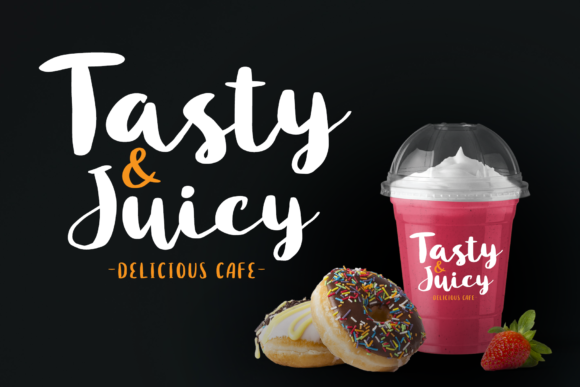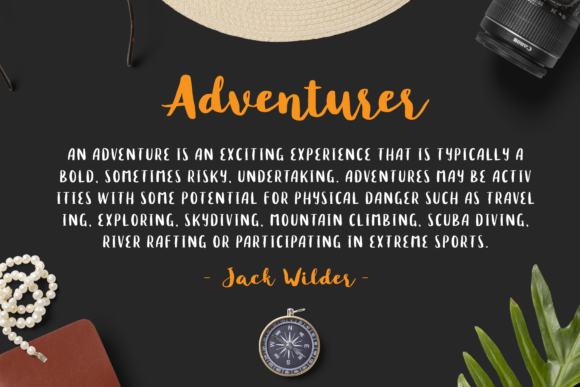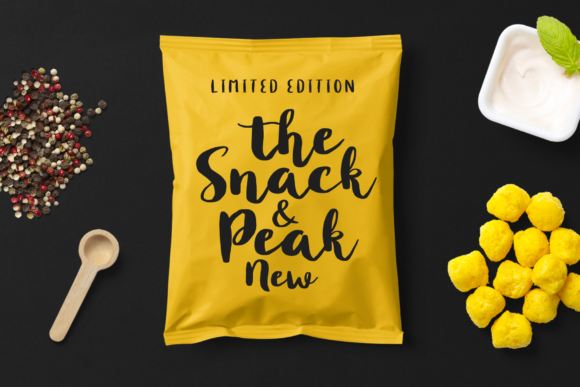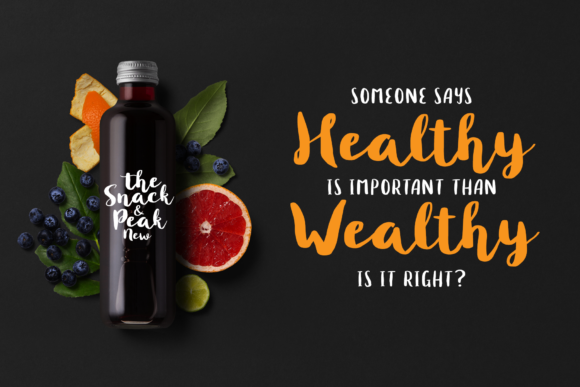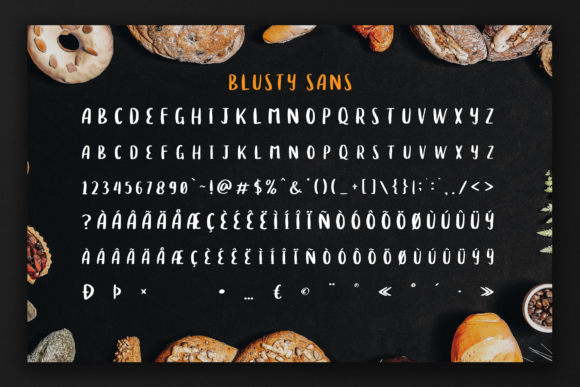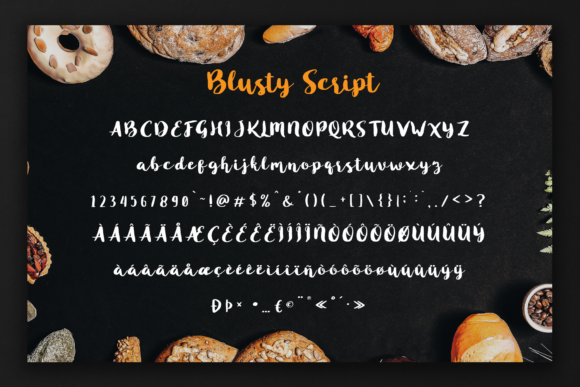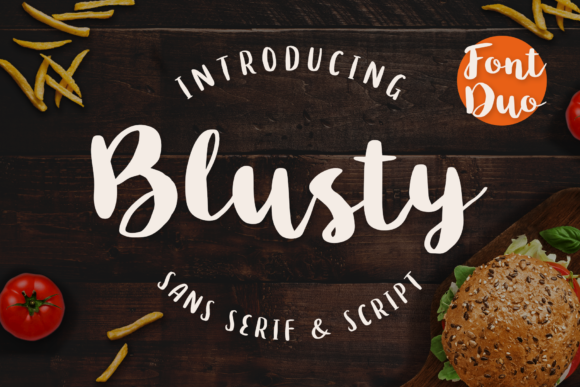
Introducing the Blusty Duo Font: Elevate Your Designs with a Personal Touch
In the world of digital design, fonts play a crucial role in conveying the intended message and aesthetic of a project. For designers and crafters looking to add a personal, human touch to their work, the Blusty Duo Font is an exceptional choice. This handwritten font duo is designed to transform your typography into exciting and beautiful pieces of art, perfect for a wide range of creative projects.
The Essence of Handwritten Typography
The Blusty Duo Font is rooted in the authenticity of real handwriting. Each letter is carefully crafted to reflect the natural flow and imperfections of handwritten text, giving your designs a warm, inviting feel. Unlike uniform, machine-generated fonts, the Blusty font’s irregular, hand-lettered look adds a unique character that resonates with audiences on a personal level.
Key Features of the Blusty Duo Font
- Handwritten Authenticity: The Blusty font is based on genuine handwriting, providing a personal and relatable touch to your designs.
- Versatility: As a duo font, it offers multiple styles that can be combined in various ways to suit your project’s needs.
- Ornamental Swashes and Banners: Enhance your typography with beautiful swashes and banners, adding an extra layer of elegance and sophistication.
- Loving Details: The font is filled with intricate details that make each character stand out, ensuring your text doesn’t just convey a message but tells a story.
Creative Applications of the Blusty Duo Font
The Blusty Duo Font’s versatility makes it suitable for a myriad of creative projects. Here are some ideas to get you started:
- Branding and Logos: Create a memorable brand identity with custom logos that speak to your audience on a personal level.
- Stationery and Invitations: Add a touch of elegance and warmth to your stationery, invitations, and greeting cards.
- Digital and Print Media: Use the Blusty font in your digital content, such as blog posts, social media graphics, and newsletters, or in print materials like brochures and posters.
- Crafting and DIY Projects: Perfect for crafters, the Blusty font can be used in various DIY projects, from handmade cards to custom signage.
Tips for Maximizing the Blusty Duo Font’s Potential
To make the most out of the Blusty Duo Font, consider the following tips:
- Experiment with Combinations: Don’t be afraid to mix and match the different styles within the Blusty duo to create a unique look that fits your project’s theme.
- Emphasize with Swashes: Use the ornamental swashes and banners to draw attention to key words or phrases, adding emphasis and style to your designs.
- Play with Sizes and Colors: Varying the size and color of your text can add depth and interest to your designs, making them more engaging.
The Blusty Duo Font is more than just a typeface; it’s a tool for designers and crafters to infuse their projects with a personal, human touch. Its handwritten authenticity, versatility, and beautiful details make it an invaluable asset for anyone looking to elevate their designs. Whether you’re working on a branding project, crafting handmade cards, or creating digital content, the Blusty Duo Font is sure to inspire and enhance your creative endeavors.
Embrace the warmth and uniqueness of the Blusty Duo Font in your next project, and discover how this beautiful handwritten font duo can transform your typography into stunning works of art.